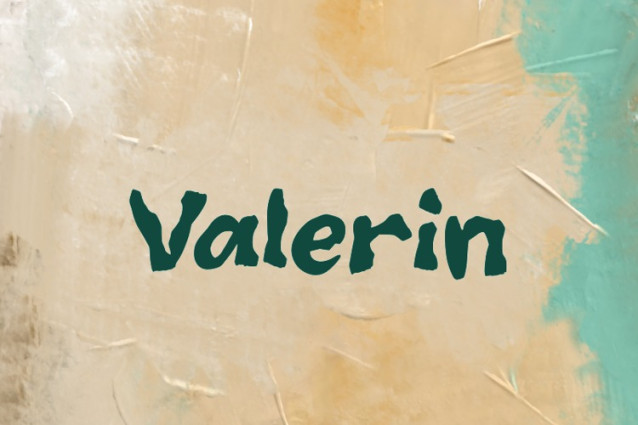
Valerin Font
Valerin Font, it would be a perfect choice to design posters, affiches, logos, t-shirt and magazine prints, eye-pleasing typographic designs and more.